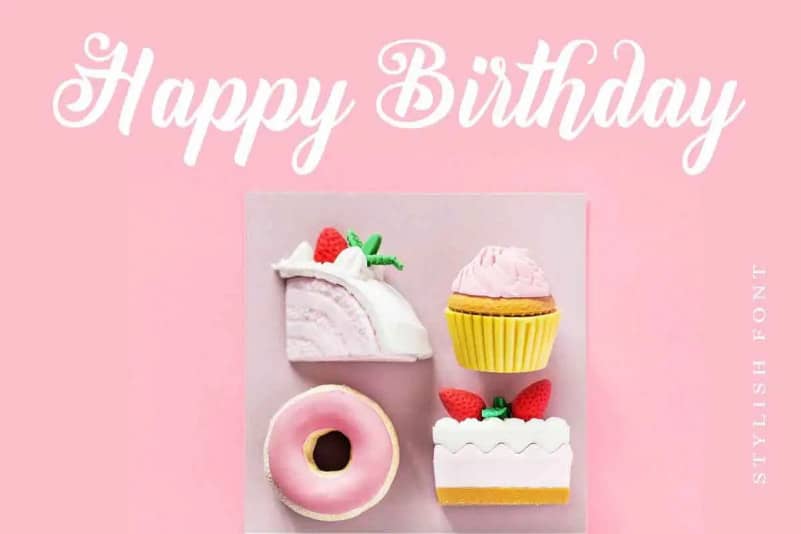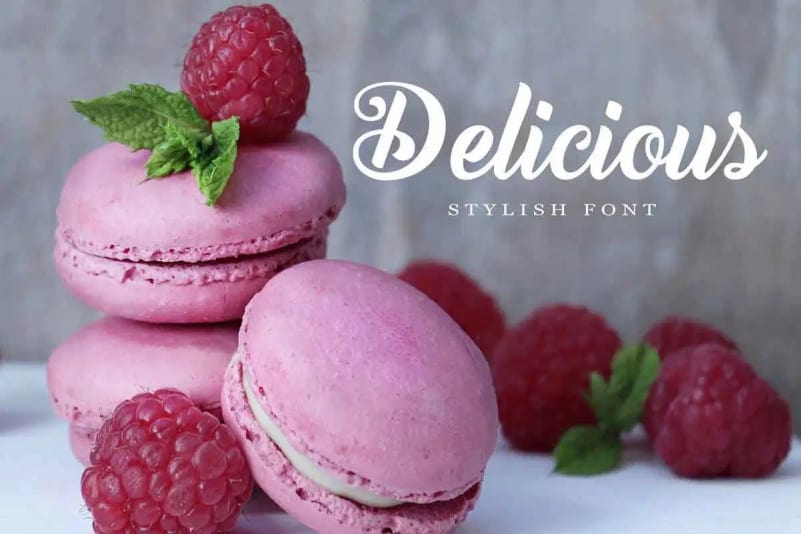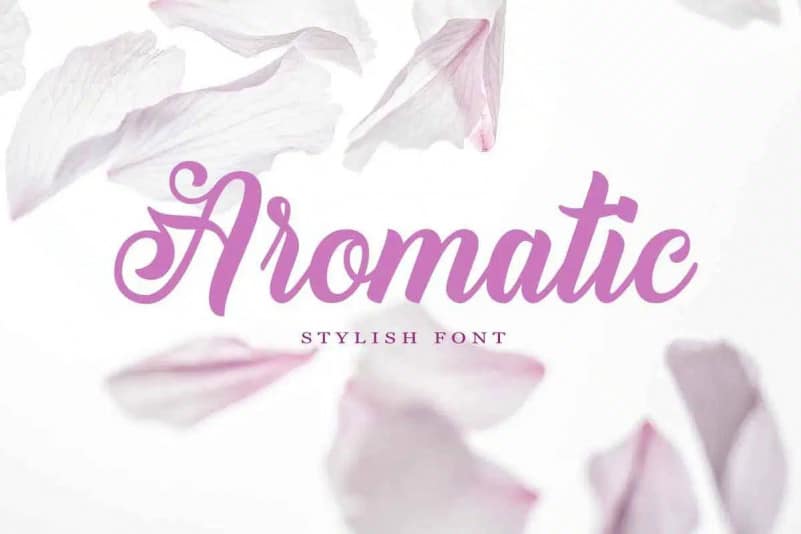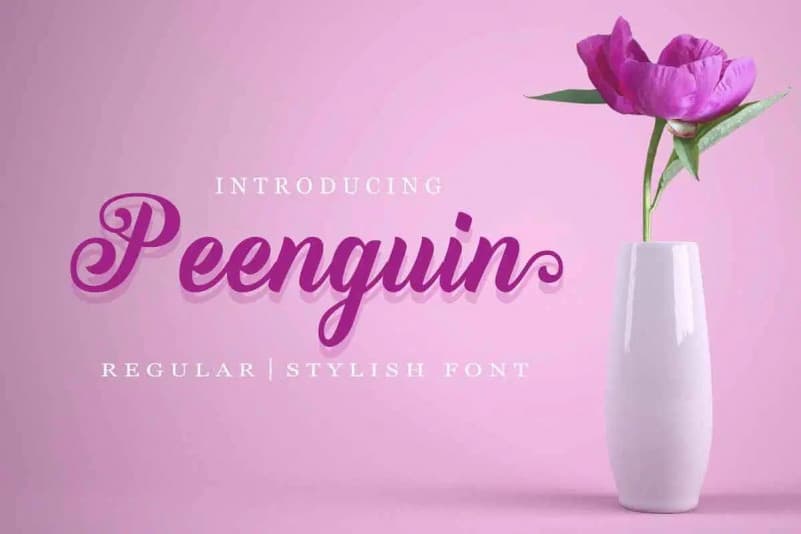
Peenguin Script Font
Hello friend. Peenguin Script Font. The natural hand writing feel make this font makes it stands out. Made from font designer named fontkong. This font perfectly made to be applied especially in logo, and the other various formal forms such as invitations, labels, logos, magazines, books, greeting / wedding cards, packaging, fashion, make up, stationery, novels, labels or any type of advertising purpose.